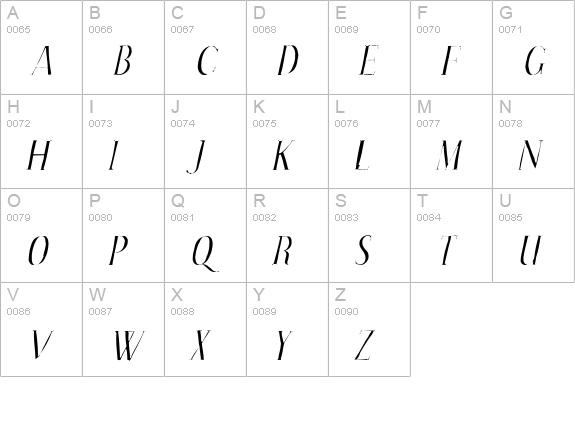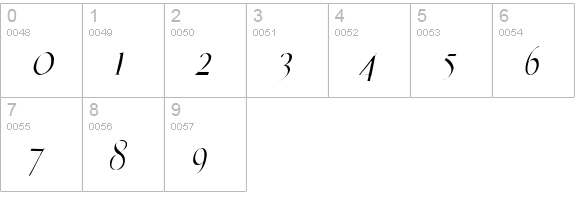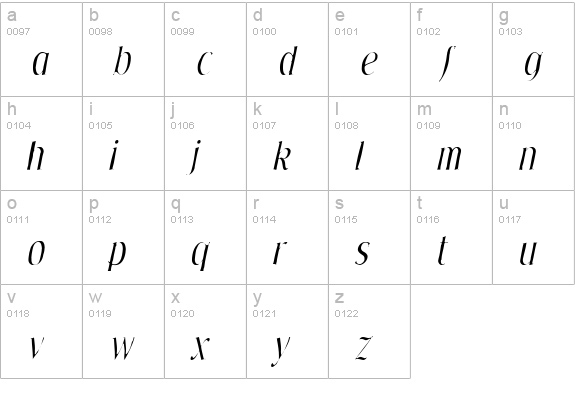
Effloresce Gaunt Italic is a distinctive, italic variant in the Effloresce typeface family \xE2\x80\x94 well suited to design and typography projects.
Effloresce Gaunt Italic is a stunning and elegant font that exudes sophistication and creativity. Its delicate and slender letterforms add a touch of grace to any design project. The italicized style brings a sense of movement and fluidity, making it perfect for titles, headings, and other prominent text elements. This unique font is freely available to download at FontsMarket.com, allowing designers and creatives to easily access its beauty and versatility. Whether you're working on a branding project, a website design, or a print layout, Effloresce Gaunt Italic will elevate your work with its timeless charm and modern appeal. Don't miss out on this exquisite font that will surely make your designs stand out from the crowd.